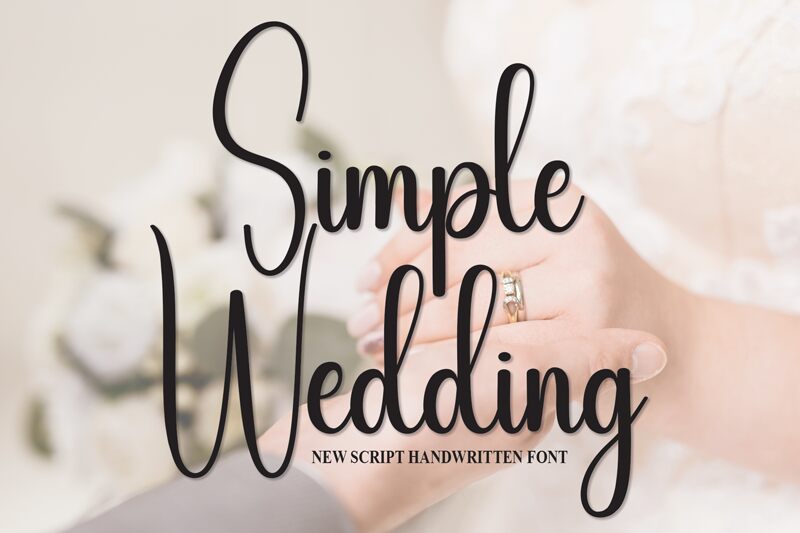
Simple Wedding
Simple Wedding, designed by Scratchones, exudes a charm that is both intimate and elegant. Its handwritten style offers a personal touch, reminiscent of a heartfelt note or invitation. Graceful strokes and fluid lines give it an air of sophistication, making it particularly suited for occasions that call for a blend of simplicity and refinement.
The font's aesthetic lends itself to applications where warmth and approachability are key. Think wedding stationery, from save-the-dates to thank-you cards, boutique branding, or any design space where the goal is to convey personalized elegance. Simple Wedding stands out as the go-to typeface for creating an atmosphere of affectionate sophistication.